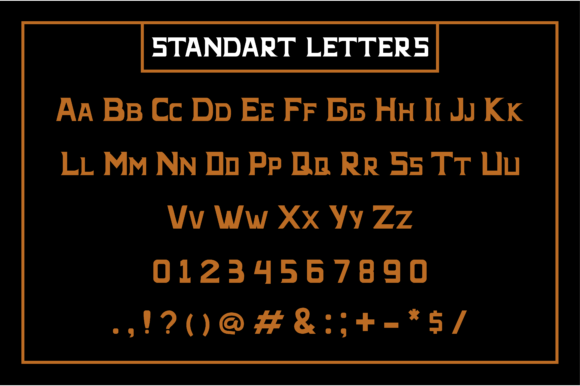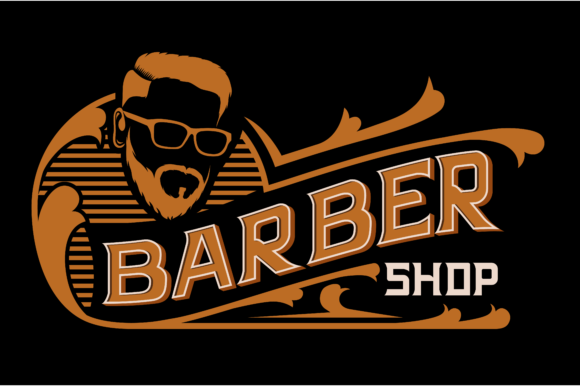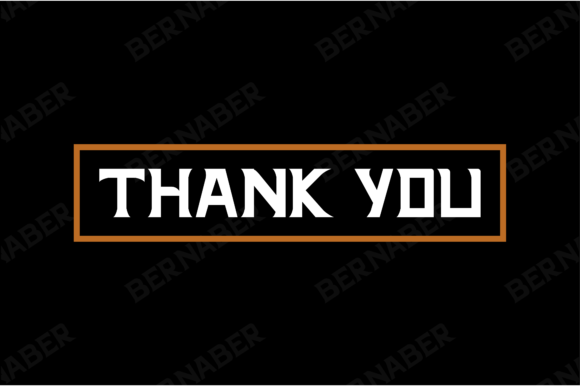
Bernaber Font: A Bold Display Font with a Vintage Twist
Are you looking for a font that can add a touch of elegance and sophistication to your designs? Look no further than the Bernaber font, a bold display font that features a vintage style. With its unique and eye-catching design, Bernaber is the perfect choice for designers and crafters who want to make their designs come alive.
What is Bernaber Font?
Bernaber font is a bold display font that is inspired by the classic typography of the past. Its vintage style is reminiscent of old-fashioned posters, signs, and advertisements, but with a modern twist. The font features bold lines, intricate details, and a distinctive character that sets it apart from other fonts.
Key Features of Bernaber Font
- Bold and eye-catching design: Bernaber font is designed to grab attention and make a statement. Its bold lines and intricate details make it perfect for headlines, titles, and other display text.
- Vintage style: The font’s vintage style is inspired by classic typography from the past, but with a modern twist. It’s perfect for designers who want to add a touch of nostalgia to their designs.
- Highly legible: Despite its bold design, Bernaber font is highly legible, even at small sizes. This makes it perfect for use in a variety of design applications, from posters and signs to digital screens and social media.
- Versatile: Bernaber font can be used in a wide range of design applications, from print to digital. It’s perfect for designers who want a font that can adapt to different styles and formats.
How to Use Bernaber Font in Your Designs
Bernaber font can be used in a variety of design applications, from print to digital. Here are a few ideas to get you started:
- Posters and signs: Bernaber font is perfect for creating eye-catching posters and signs. Its bold design and vintage style make it ideal for advertising, promotions, and other marketing materials.
- Digital screens: Bernaber font can be used in digital screens, such as video walls, kiosks, and digital signage. Its high legibility and bold design make it perfect for grabbing attention in busy digital environments.
- Social media: Bernaber font can be used to create eye-catching social media graphics, such as Facebook posts, Instagram stories, and Twitter headers. Its bold design and vintage style make it perfect for standing out in crowded social media feeds.
- Branding and packaging: Bernaber font can be used in branding and packaging design to add a touch of elegance and sophistication. Its unique design and vintage style make it perfect for luxury brands, food and beverage packaging, and other premium products.
Tips for Getting the Most Out of Bernaber Font
Here are a few tips for getting the most out of Bernaber font:
- Use it sparingly: Bernaber font is a bold display font, so it’s best to use it sparingly. Use it for headlines, titles, and other display text, but not for body copy or other smaller text.
- Experiment with colors: Bernaber font looks great in a variety of colors, from bold and bright to muted and pastel. Experiment with different colors to find the one that works best for your design.
- Pair it with other fonts: Bernaber font can be paired with other fonts to create a unique and eye-catching design. Try pairing it with a clean sans-serif font for a bold and modern look.
Bernaber font is a bold display font with a vintage style that’s perfect for designers and crafters who want to add a touch of elegance and sophistication to their designs. With its unique design, high legibility, and versatility, Bernaber font is the perfect choice for a wide range of design applications. Whether you’re creating posters, signs, digital screens, or social media graphics, Bernaber font is sure to make your designs come alive!